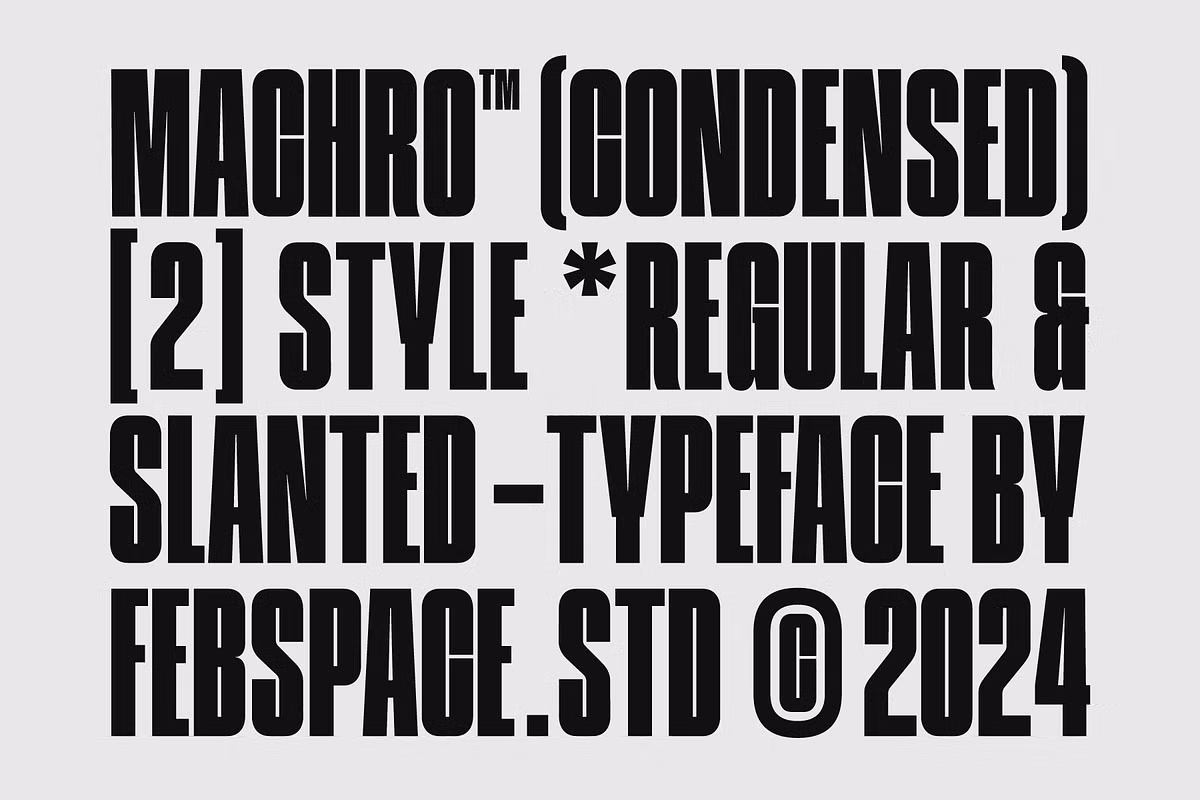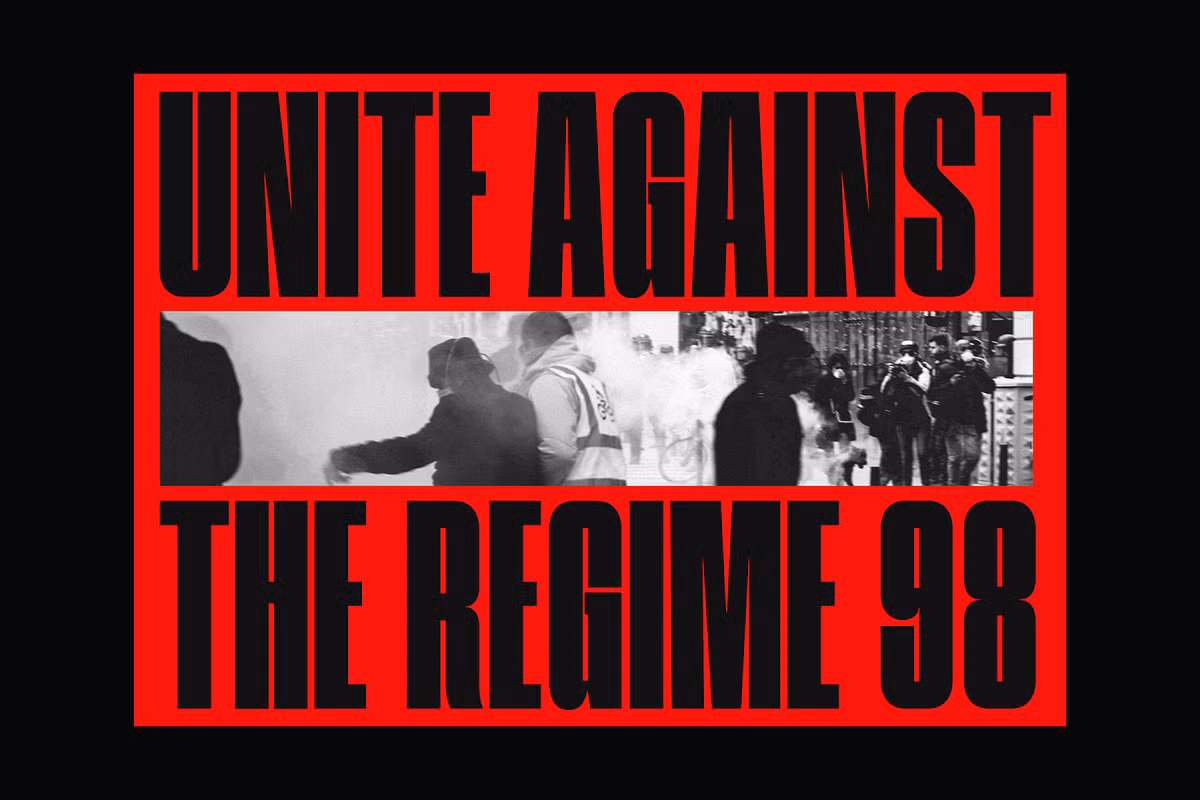
FBS Machro: Modern Condensed Typeface for Bold Design Projects
FBS Machro is a really strong and dynamic font that can add a lot of power to your designs. It’s carefully made to make your projects look great, and its bold letters are especially good at highlighting important parts of your design, whether it’s in print or on a screen. What’s more, this modern font is not just about looking good – it’s also very functional, which makes it a must-have for designers who want to create visuals that really grab people’s attention.
With FBS Machro, you can create designs that are both stylish and effective, which is exactly what you need to make a lasting impression. Its condensed style is perfect for making a big impact, and its clean lines and simple shapes make it easy to read and understand. Whether you’re working on a poster, a website, or a brochure, FBS Machro is a great choice if you want to add some energy and excitement to your design.
Design Style of FBS Machro
The FBS Machro design stands out with its slim look and strong, easy-to-read details. This special mix makes it easy to read, even when it’s small, so it’s great for lots of different uses. You can get it in two different styles: Regular and Slanted. The Regular style is perfect for the main text and headings because it looks solid and stable on the page.
On the other hand, the Slanted style adds a lot of energy and movement, making it just right for designs that need to grab your attention.
Regular Style
The Regular style of FBS Machro is all about being clear and easy to read. It’s perfect for the main text in things like magazine articles or websites, where you want people to be able to read what you’re saying without any trouble. This style makes sure your words are easy on the eyes, while still looking good and making an impact.
Slanted Style
FBS Machro’s Slanted style really gives design a boost with its lively angle. It’s great for things like calls to action and promotional stuff – anything that needs to stand out. The slant brings a sense of movement and energy, catching the viewer’s eye and making the content more interesting. This style is perfect for adding some excitement to your design and making it more engaging.
Character Sets and Legibility
FBS Machro has a huge range of characters that can be used to write in many different languages and to create all sorts of typographic effects. Each character in the font has been carefully designed to make sure it is easy to read. This is really important these days, because people often just glance at text on their screens instead of taking the time to read it properly.
The way FBS Machro is designed helps to make sure that the text is clear and easy to understand, even when you’re just skimming over it. With its precise and legible characters, FBS Machro is a great choice for anyone who wants to communicate effectively in a digital world.
Use Cases for FBS Machro
FBS Machro is an incredibly versatile typeface suitable for a multitude of design projects. Here are some of the key use cases where this modern condensed font truly shines:
- Branding: Create a strong brand identity with FBS Machro by utilizing its bold characteristics in logos and promotional materials.
- Posters: Design eye-catching posters that stand out in public spaces, utilizing both the Regular and Slanted styles to convey messages effectively.
- Digital Media: Enhance websites and social media graphics with FBS Machro, making text elements pop and ensuring messages are clearly communicated.
- Advertising: Utilize the Slanted style for advertisements that require immediate attention, such as banners, flyers, and online ads.
- Print Publications: From magazines to brochures, the Regular style is perfect for body text, ensuring readability while maintaining a modern aesthetic.
Pairing Suggestions for FBS Machro
When designing with typography, choosing the right font combinations is crucial for creating a harmonious look. The bold and striking characteristics of FBS Machro make it a versatile font that can be paired with a wide range of other typefaces to achieve a unique and balanced visual effect.
To help you get started, we’ve put together some suggested font pairings that complement FBS Machro’s distinctive style, and these combinations can be used to add depth and visual interest to your design projects.
- Sans-serif Fonts: Pair FBS Machro with a clean sans-serif font like Montserrat or Open Sans for a modern and professional look.
- Serif Fonts: For a classic look, try combining FBS Machro with a serif font, such as Merriweather or Playfair Display.
- Display Fonts: If you want to create an eclectic look, try pairing FBS Machro with a decorative display font for special promotions or events.
Whether you’re working on a logo, a poster, or a website, FBS Machro is an excellent choice that’s sure to deliver results. Its modern style and bold characters make it perfect for making a statement, and its clarity and legibility ensure that your message gets across loud and clear. Overall, FBS Machro is an exceptional typeface that’s sure to elevate your designs and take them to the next level.